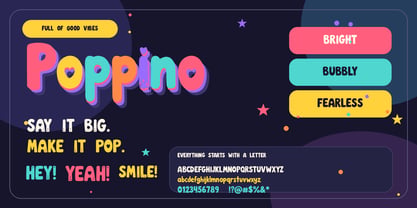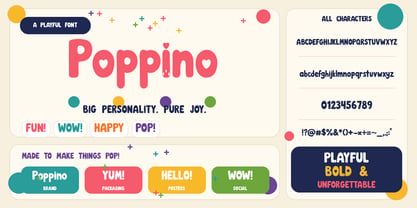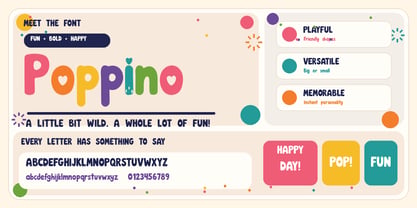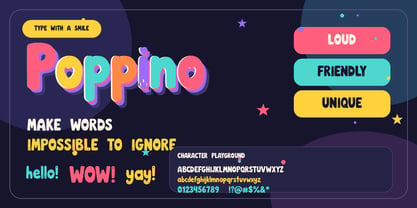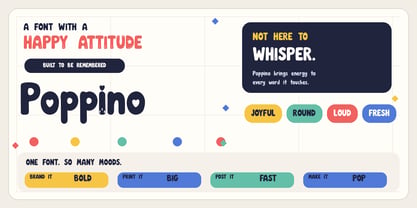
Poppino
by Zefrar
The Poppino Font Family was designed by Hamid Azzafrar and published by Zefrar. Poppino contains 1 styles. More about this family
Poppino is a bold and playful display font designed to bring joy and personality to every word. With its friendly shapes, lively rhythm, and distinctive character, it creates an instantly memorable look. Perfect for logos, branding, packaging, posters, social media, children’s projects, headlines, and any creative design that calls for a fun, fresh, and expressive touch.
Designers: Hamid Azzafrar
Foundry: Zefrar